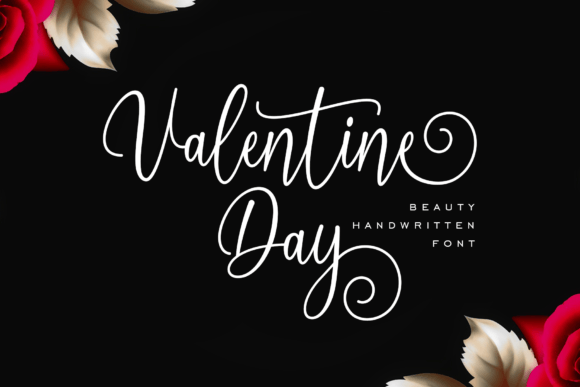
Imagine a font that captures the essence of love, romance, and heartfelt connections. Allow us to introduce you to Valentine Day Font, a stunning script font designed to add a touch of elegance and beauty to your creative projects. Step into a world of delicate curves, graceful lines, and enchanting swashes, all meticulously crafted to bring your designs to life.
With Valentine Day Font, you can effortlessly express your emotions and messages through typography. Its bouncy curves mimic the joyful heartbeats of lovers, while its delicate lines create a sense of intimacy and charm. Whether you're designing wedding invitations, love letters, greeting cards, or social media posts, this font will transform your words into works of art.
Unleash your creativity and explore endless possibilities with Valentine Day Font. Design captivating logos and branding that exude romance and sophistication. Create eye-catching headlines and posters that grab attention and leave a lasting impression. Let your imagination run wild as you craft unique and memorable designs that convey your heartfelt messages.
The magic of Valentine Day Font lies in its PUA encoding, a feature that grants you effortless access to a world of glyphs and swashes. With just a few clicks, you can incorporate intricate embellishments, charming hearts, and playful flourishes into your designs. Elevate your projects beyond the ordinary and make them truly exceptional.
Join a community of creative enthusiasts who have chosen Valentine Day Font to add a touch of love and elegance to their work. Let your designs speak volumes with this font that captures the essence of romance. Make your creative visions a reality and let Valentine Day Font be your trusted companion in your design journey.